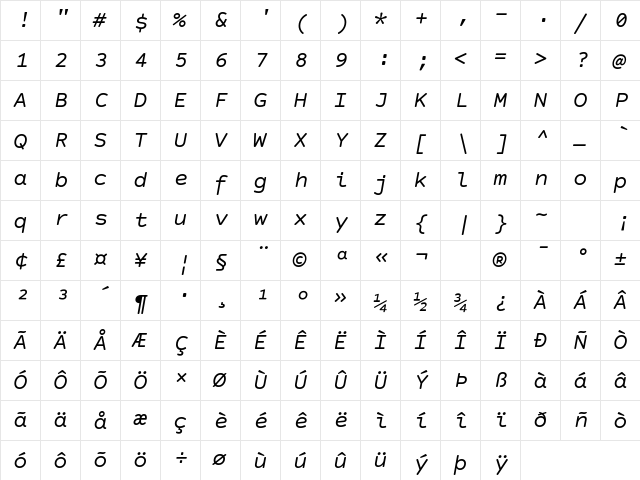
Courier Prime Code Italic Font Preview
| Foundry | Quote-Unquote Apps |
| Designer | Alan Dague-Greene |
Design Context for Courier Prime Code Typeface
Courier Prime Code brings the precise, column-aligned rhythm of monospaced typography to designs that value technical clarity and systematic order. Its italic angle brings a sense of urgency and motion to the letterforms.
Pro Tip: Use Courier Prime Code with slightly increased line-height for extended reading — fixed-width spacing can feel dense in longer passages without extra breathing room.